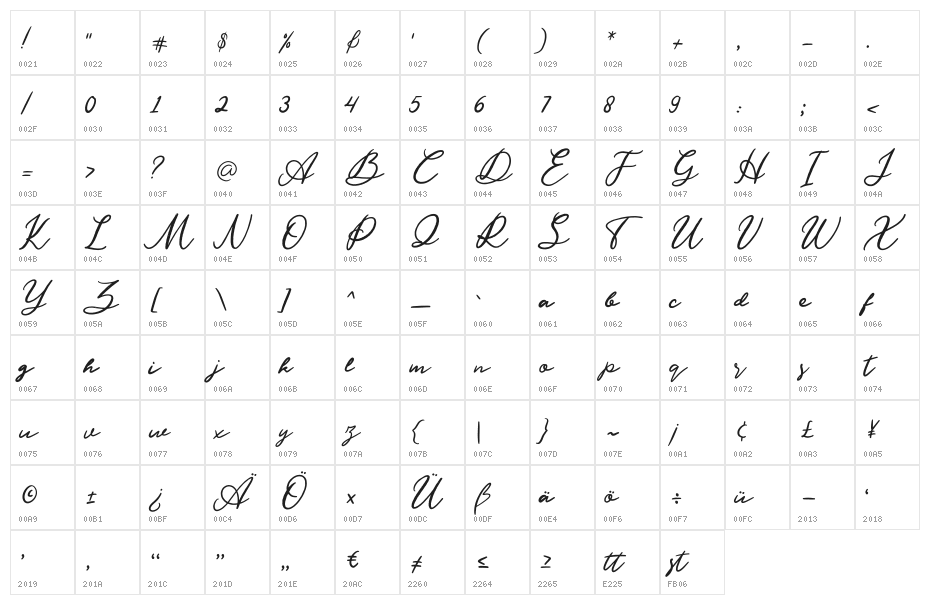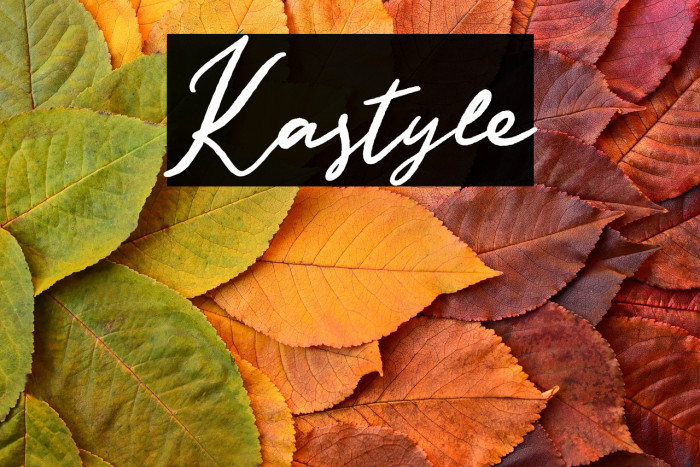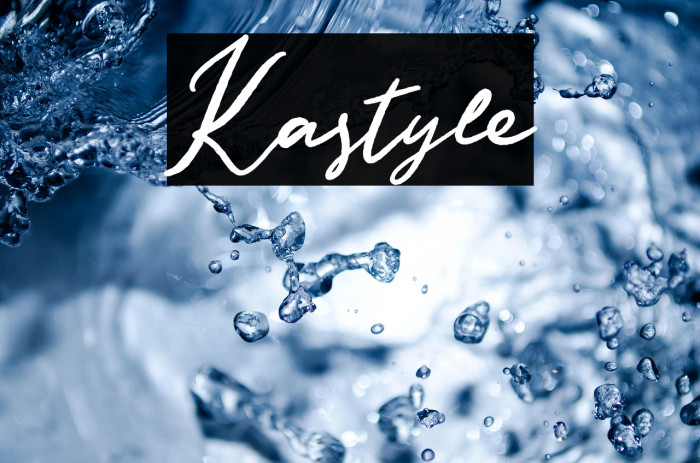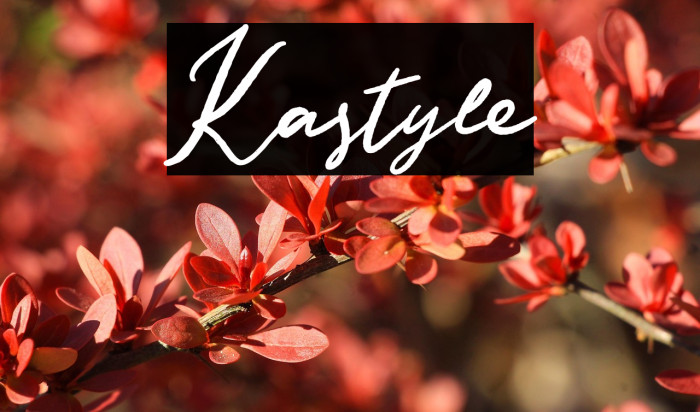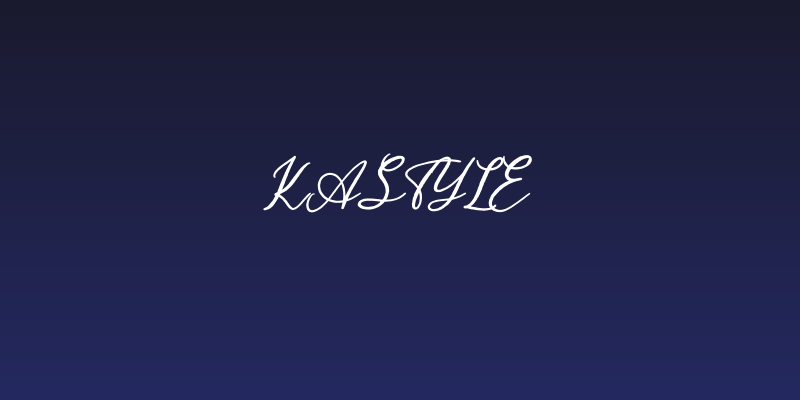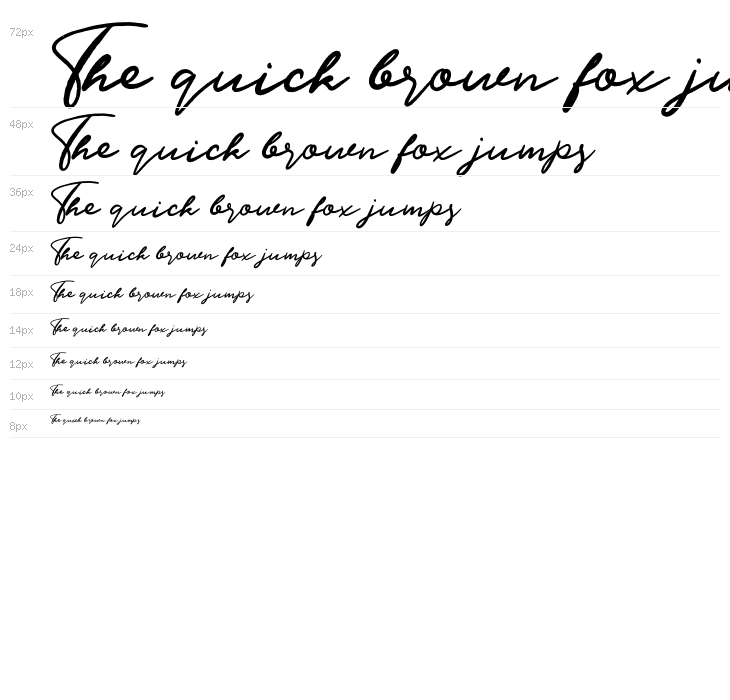
Kastyle Font
Kastyle Description
This font exudes a classic and elegant script style with a flowing, cursive design. The characters are interconnected, creating a seamless and fluid appearance. The uppercase letters are slightly more ornate, with graceful loops and swirls, while the lowercase letters maintain a consistent, smooth flow. The numerals are clear and easy to read, maintaining the cursive style without sacrificing legibility. Special characters are thoughtfully designed to match the overall aesthetic, adding a touch of sophistication. This font is perfect for projects that require a touch of elegance and formality.
| Overall Style | Classic |
| Use Case | Logos, Invitations, Formal documents |
| Proposed Projects | Ideal for wedding invitations, elegant branding, formal event programs, and personalized stationery. |